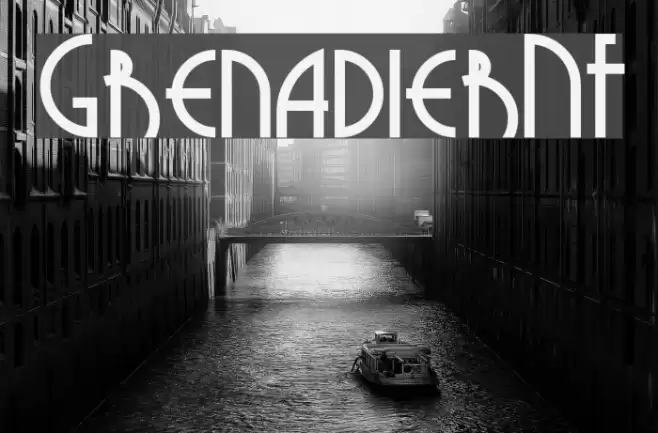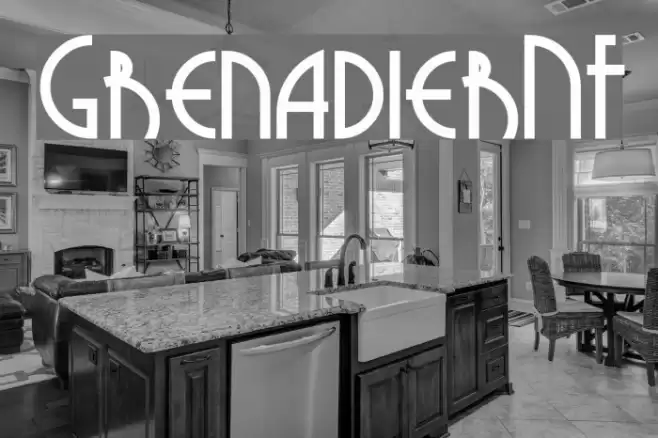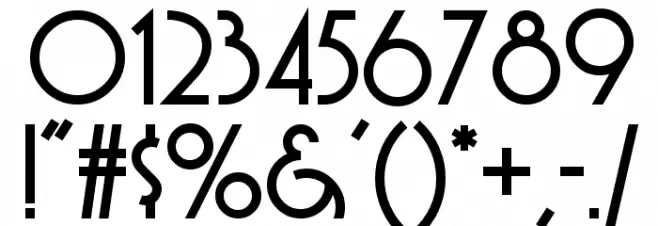
GrenadierNF Font
GrenadierNF Description
This font features a unique blend of geometric and art deco influences, characterized by its bold, angular lines and distinctive curves. The uppercase letters are particularly striking, with a strong vertical emphasis and sharp, clean edges. The lowercase letters maintain the same geometric style, offering a cohesive look across all text. Numbers and special characters are crafted with the same attention to detail, ensuring a consistent aesthetic. This font's design is both modern and reminiscent of early 20th-century typography, making it versatile for various design applications.
A geometric, art deco-inspired font with bold lines and angular curves from Uncategorized fonts.
- Proposed Projects: Ideal for branding, posters, and editorial design where a modern yet classic look is desired.